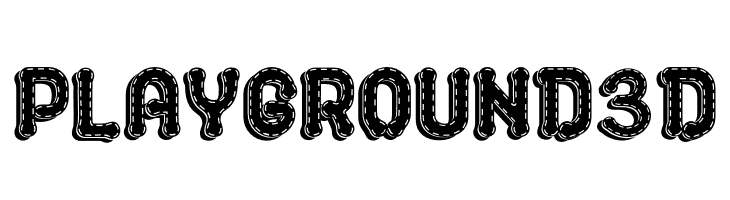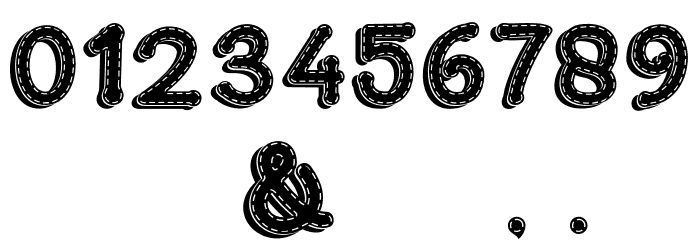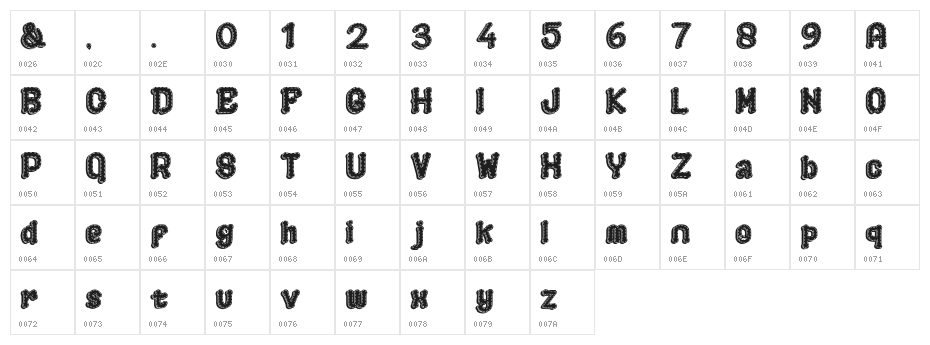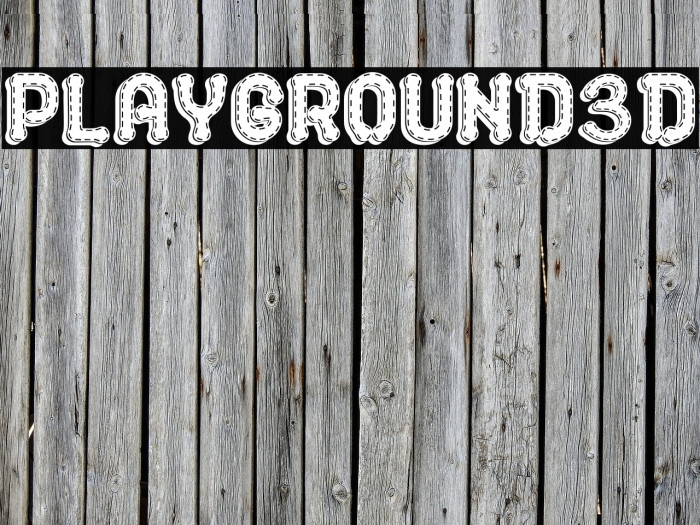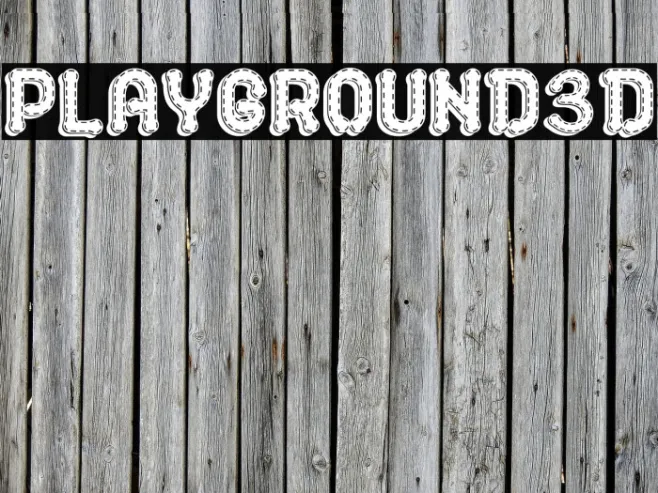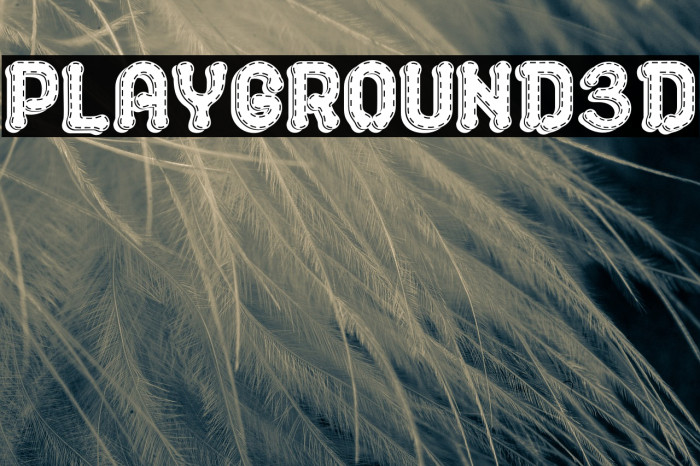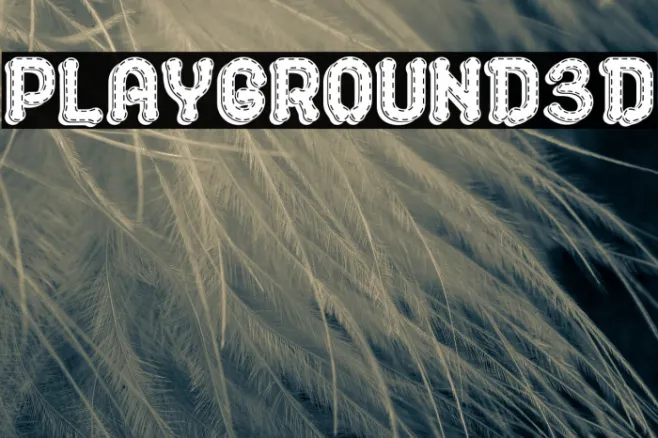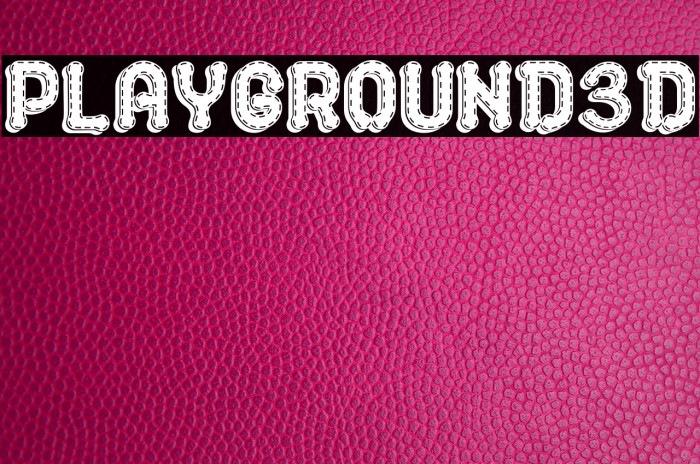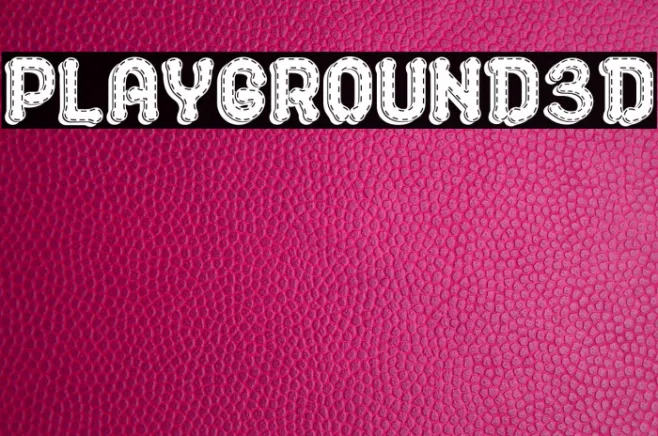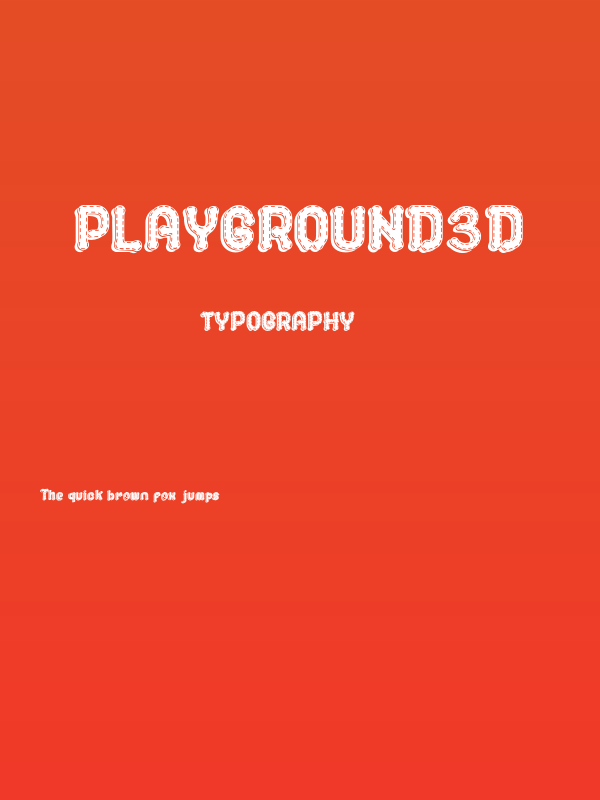
PLAYGROUND3D Font
PLAYGROUND3D Description
This font features a playful and bold 3D effect, giving each character a sense of depth and dimension. The letters are outlined with a thick black border, filled with a dotted pattern that adds texture and visual interest. The style is reminiscent of retro or vintage signage, with a whimsical and fun aesthetic. The uppercase and lowercase letters maintain a consistent style, with rounded edges and a slightly condensed form. Numbers and special characters follow the same design principles, ensuring uniformity across all glyphs. This font is ideal for projects that require a lively and engaging typeface, such as children's books, posters, or branding for playful products.
| Proposed Projects | Ideal for children's books, playful posters, and retro-themed branding. |